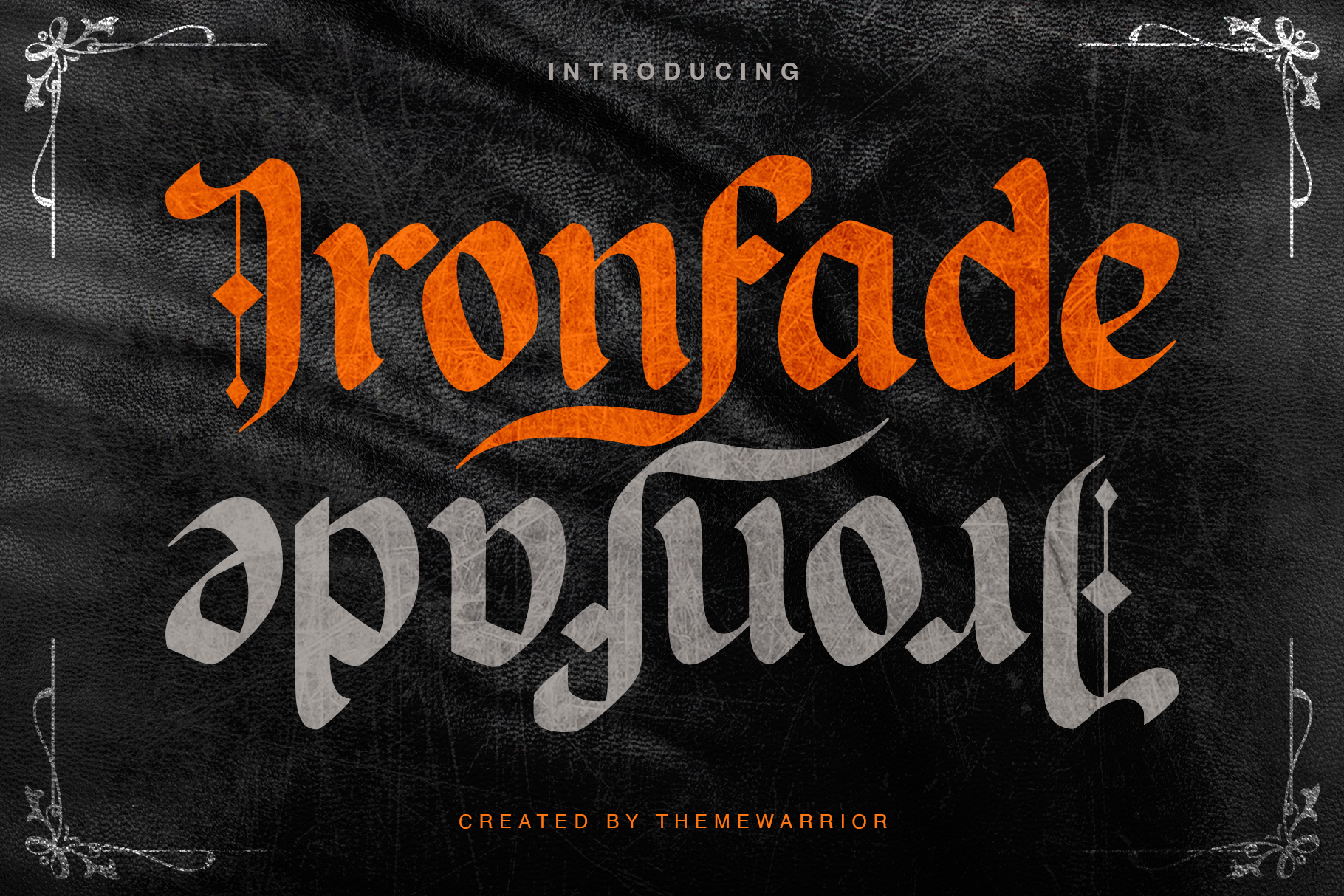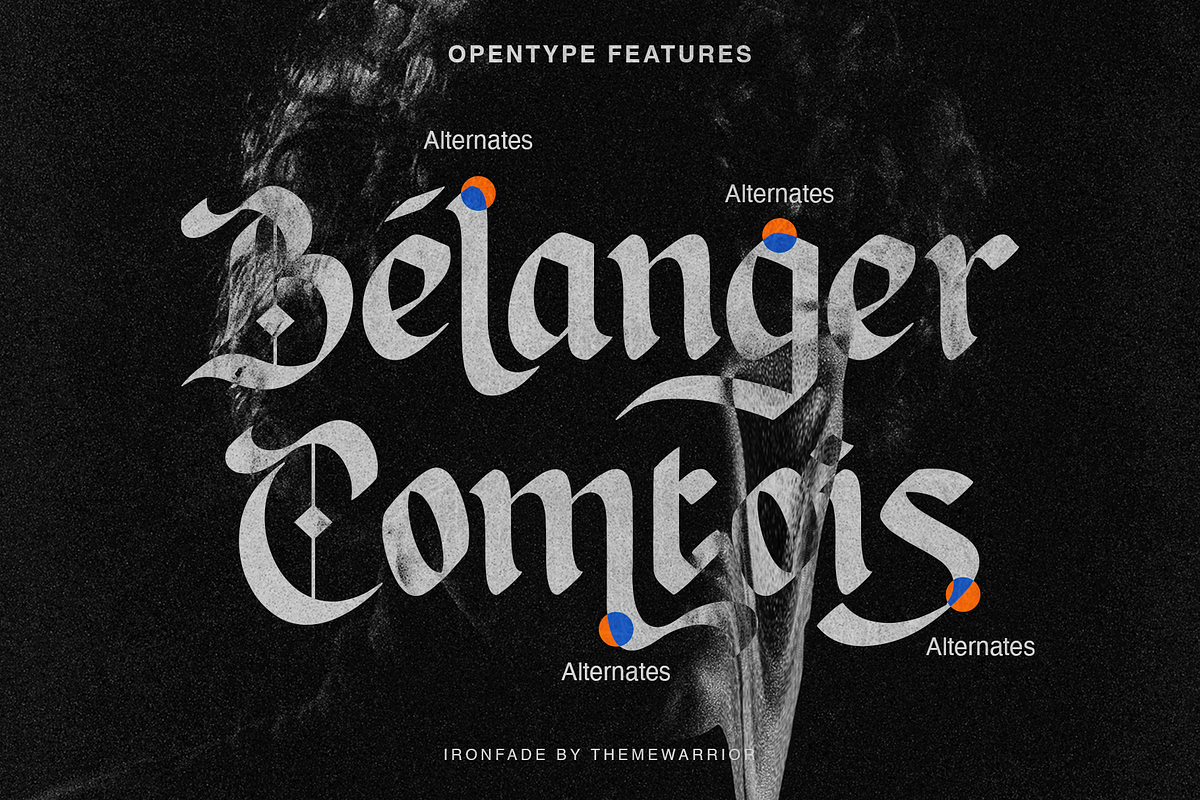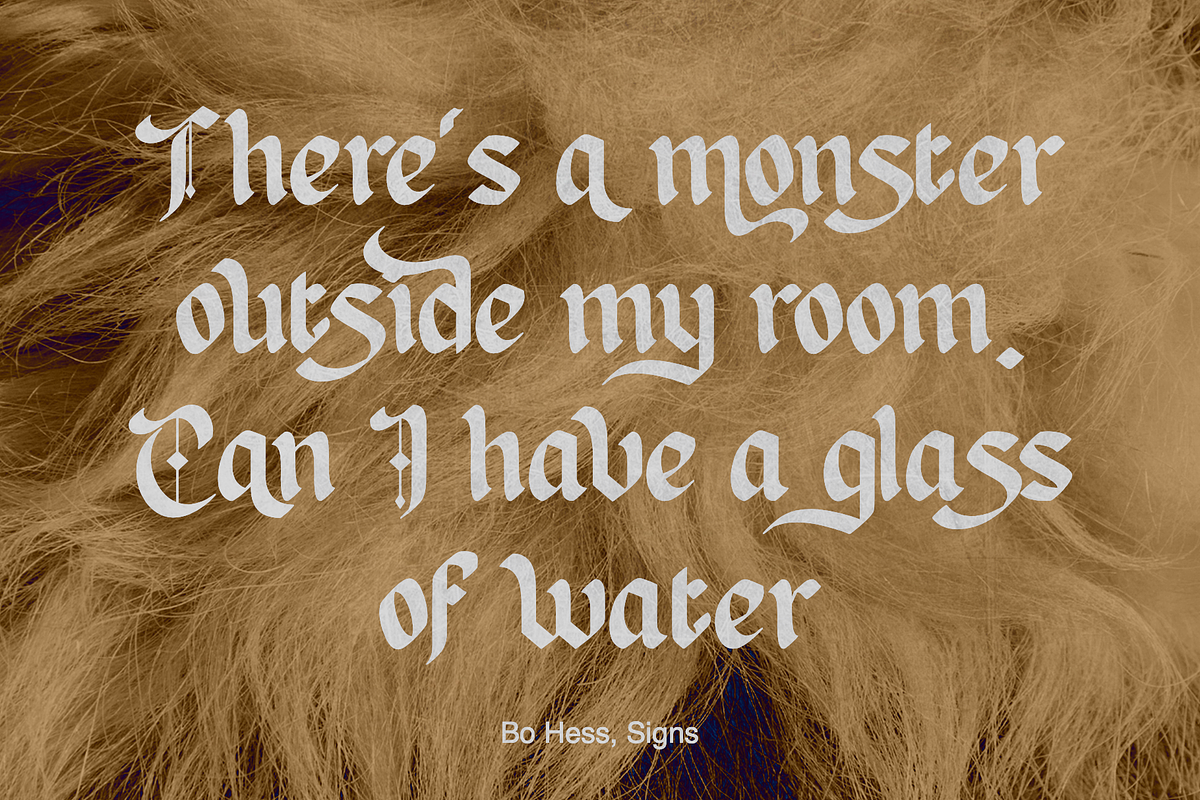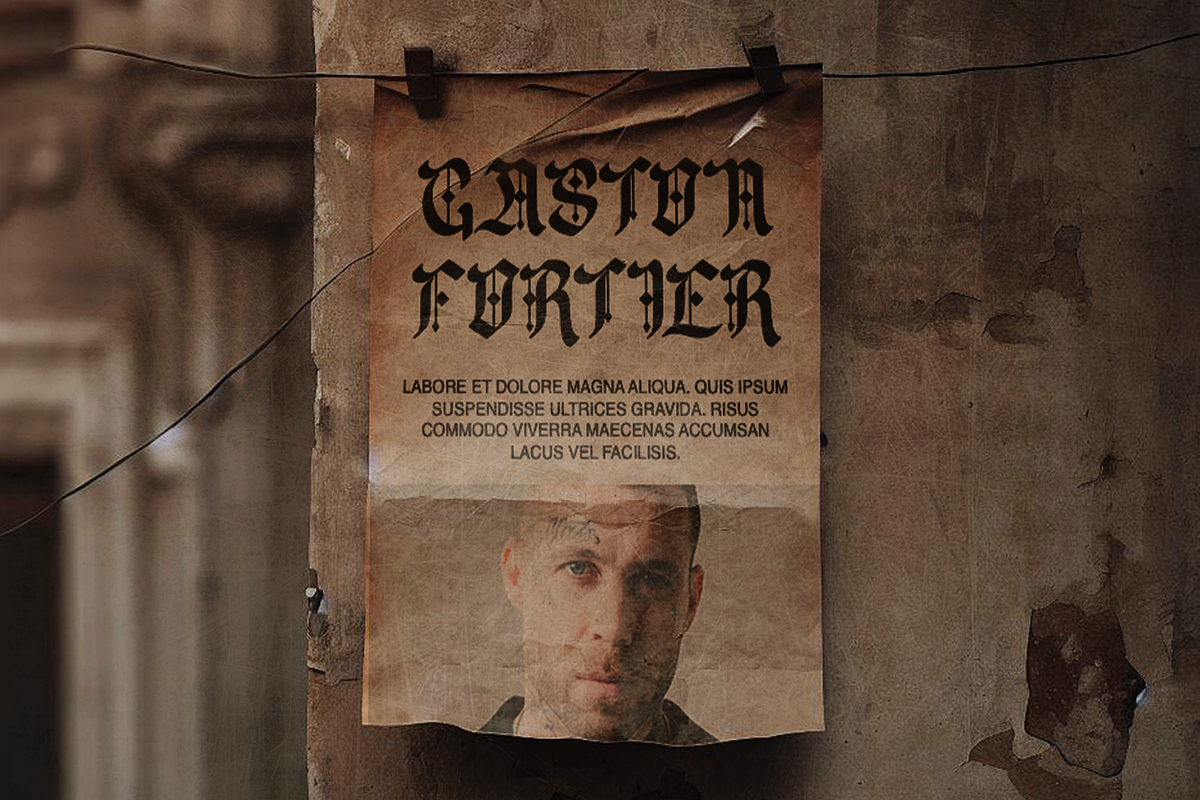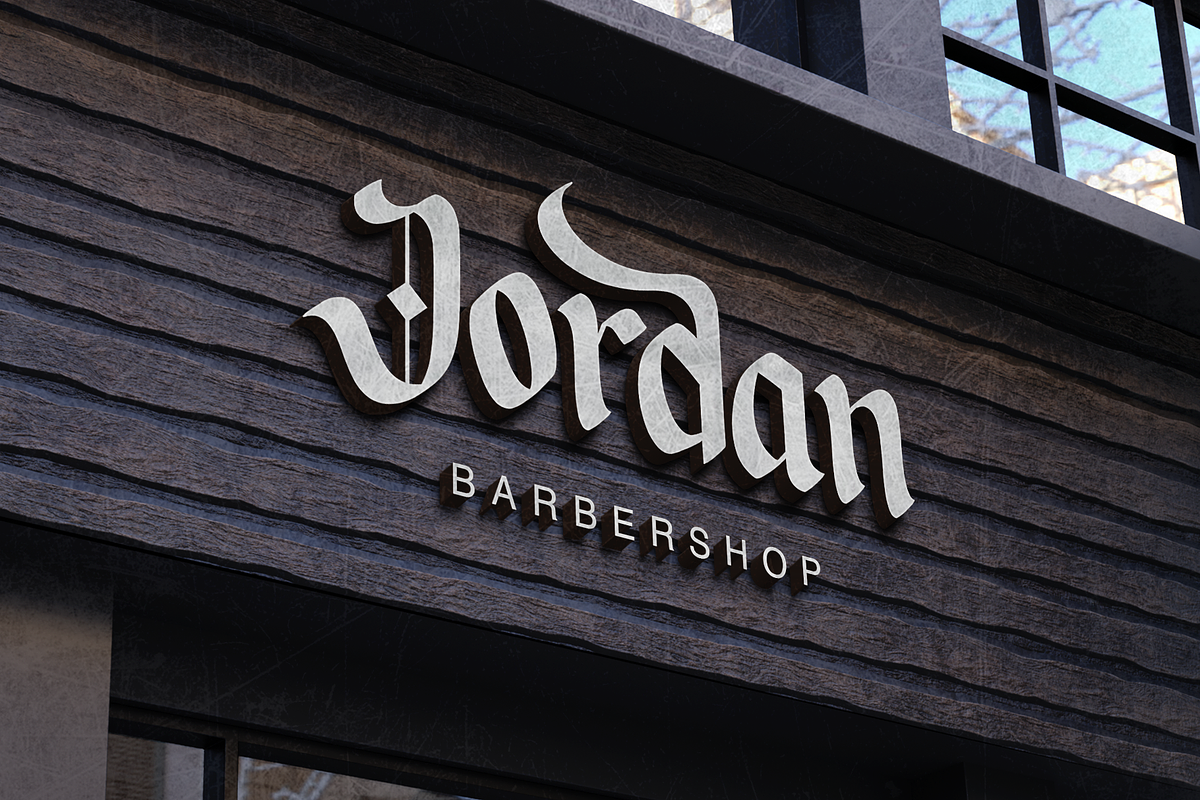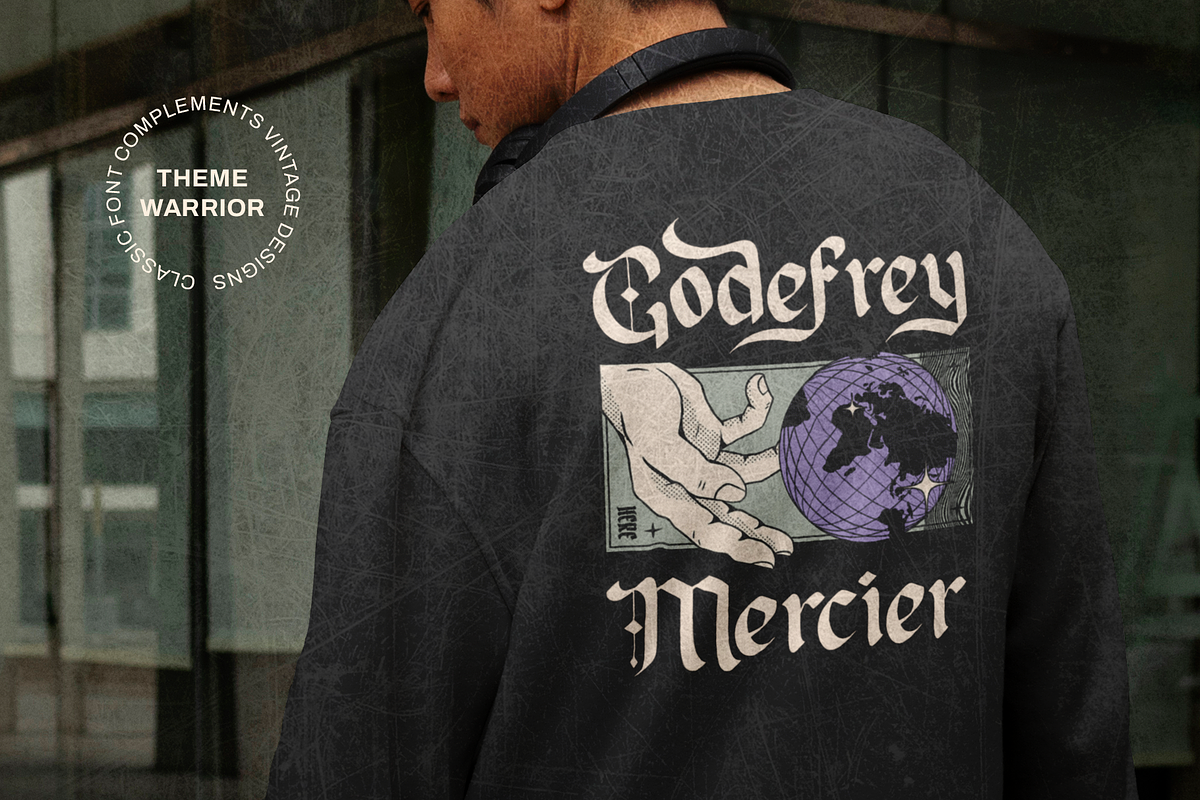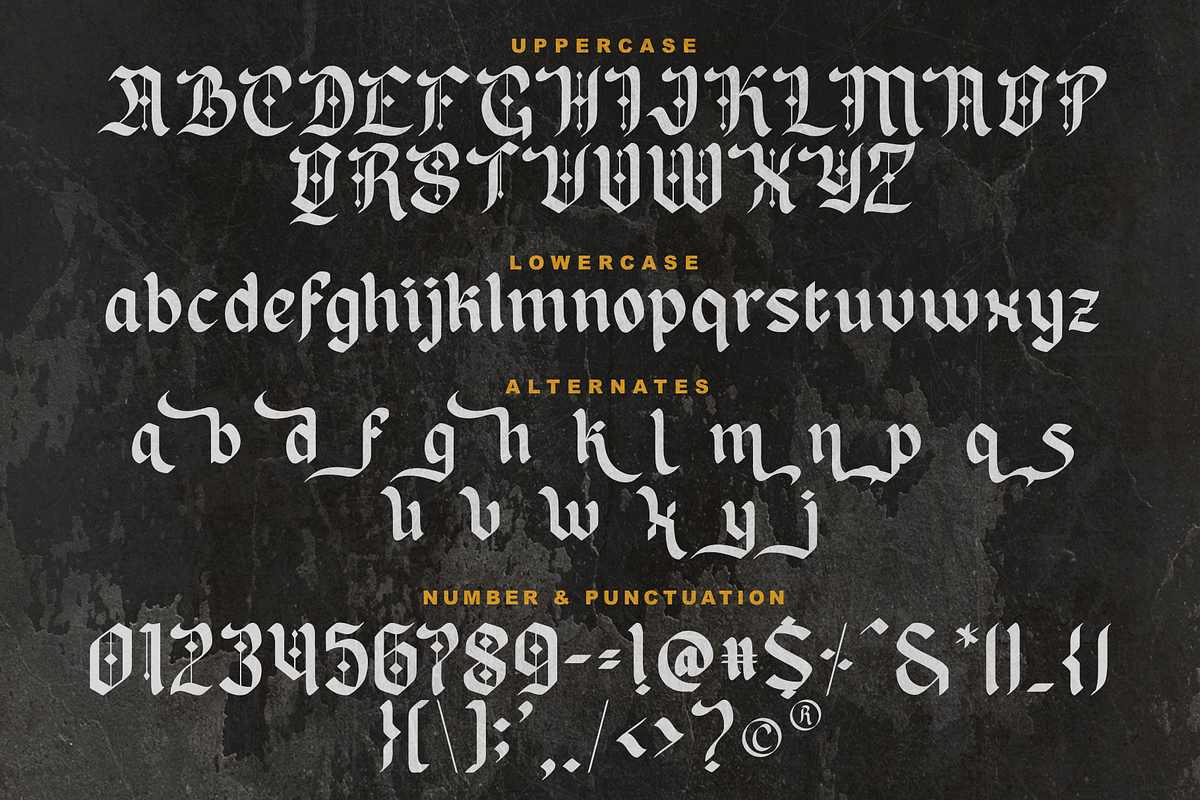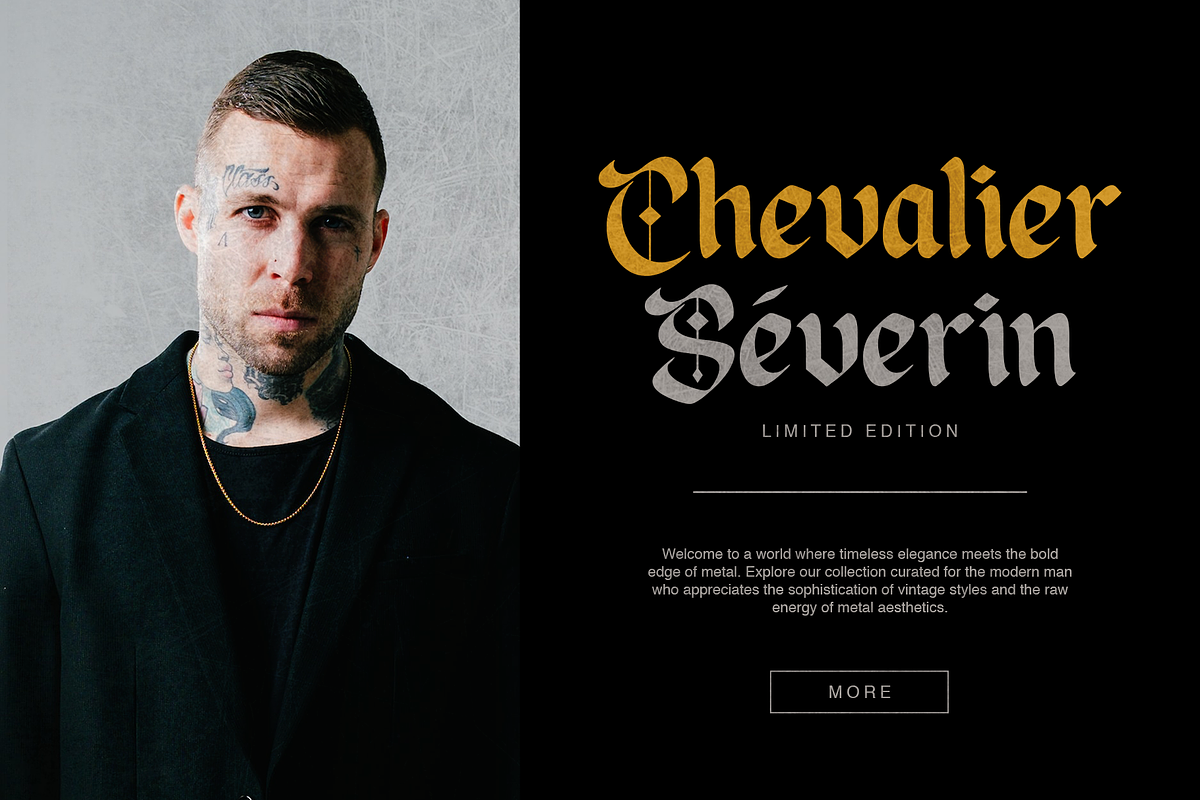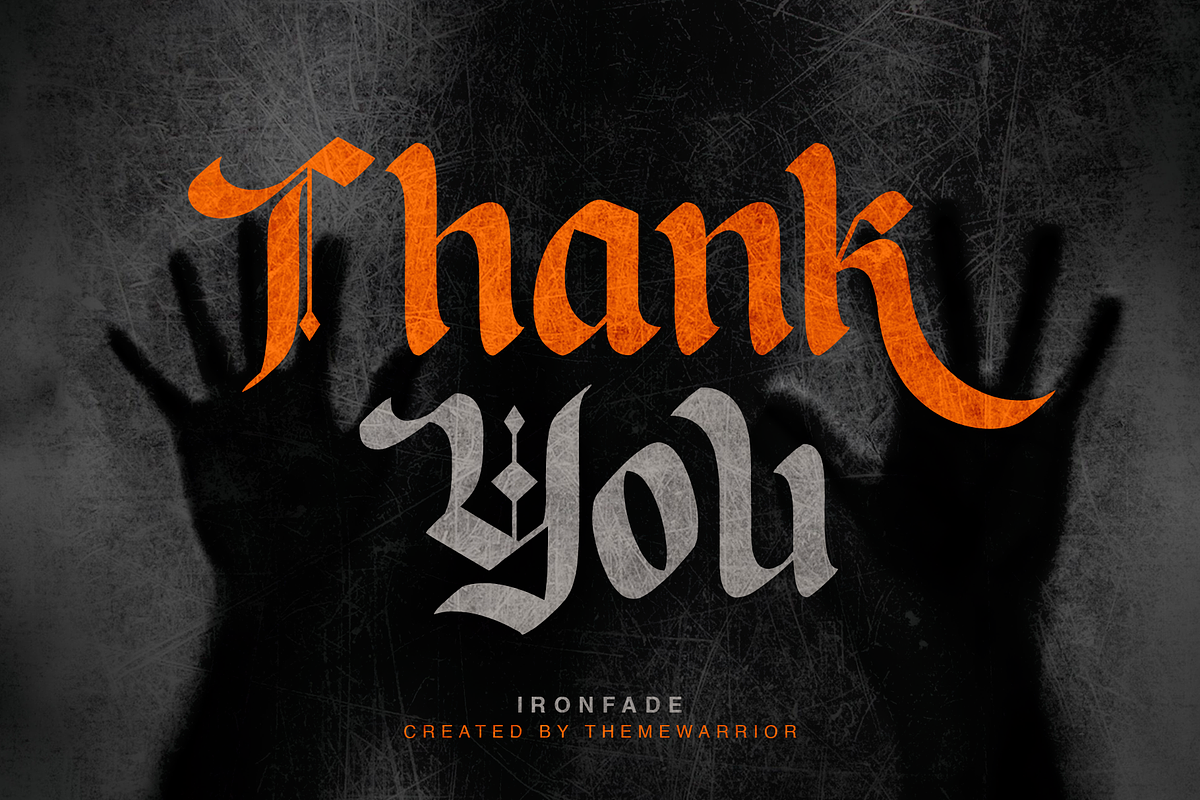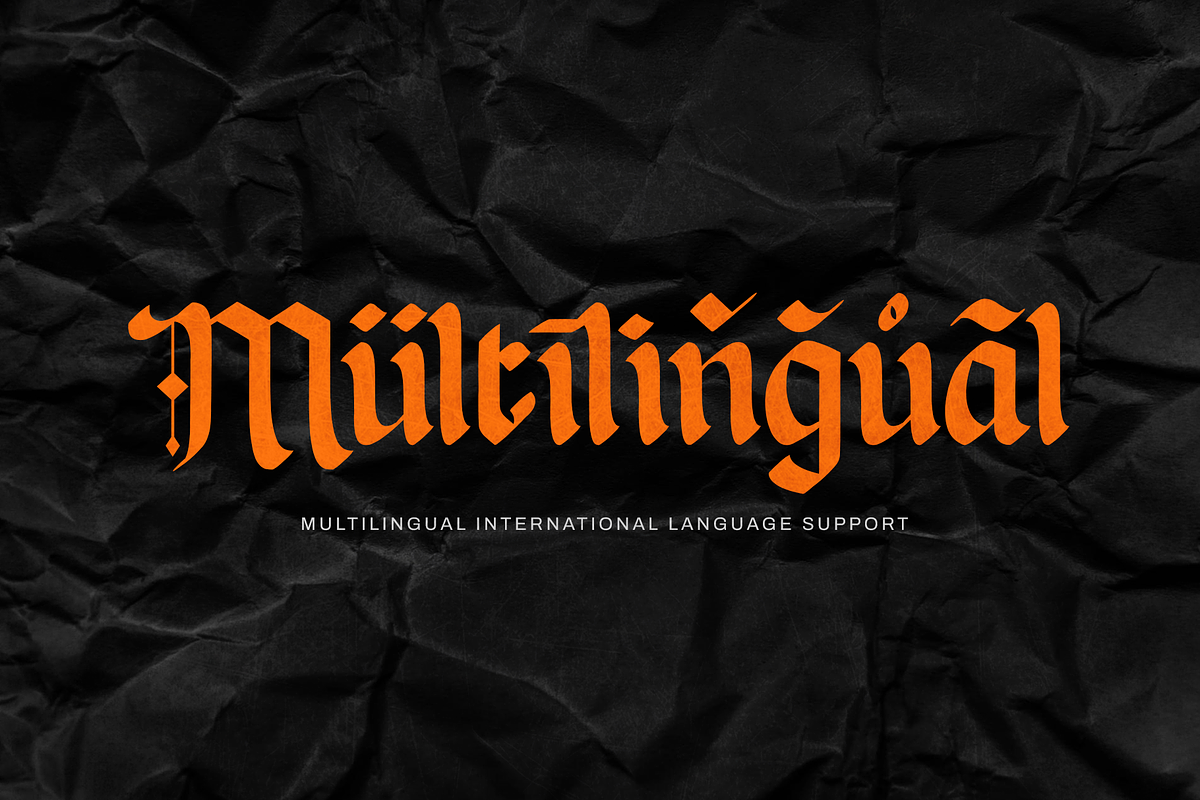
Ironfade - Blackletter Font
Ironfade is a blackletter font with gothic metal style. The font is perfect to be use on various artwork including motorcycle logo or badge designs, metal band logo, musical event advertisement, musical instrument brand logo, t-shirt, product packaging and more.